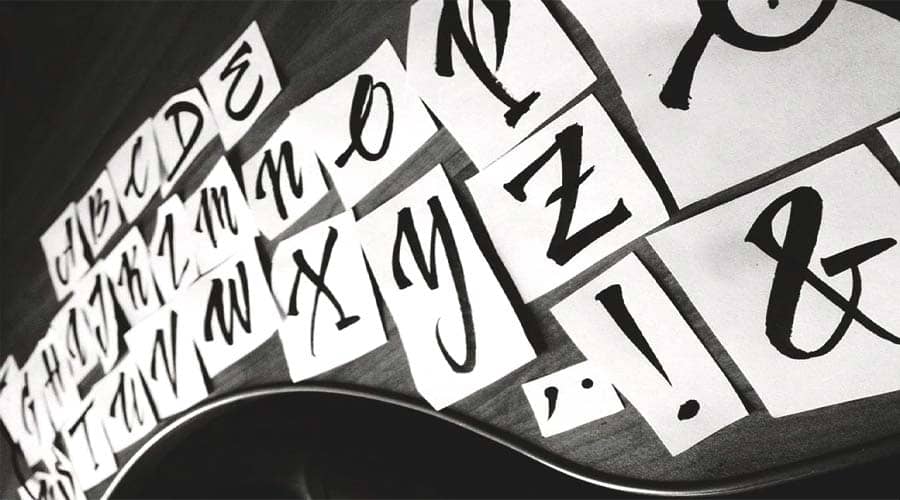
Handletter Font Free
Sasha Koggio created and published this fantastic hand-drawn looking script font on June 5, 2018.
The Handletter Font Free is suitable for branding projects, accessories designs, packaging material, newspaper headlines, and even as a stylish word overlay on any background image. In addition, the font is commonly used in the establishment of a variety of illustrations. The Handletter Font Free is also perfect for all sort of creative or artistic projects.
| Style | Script, Brush |
| Designer | Sasha Koggio |